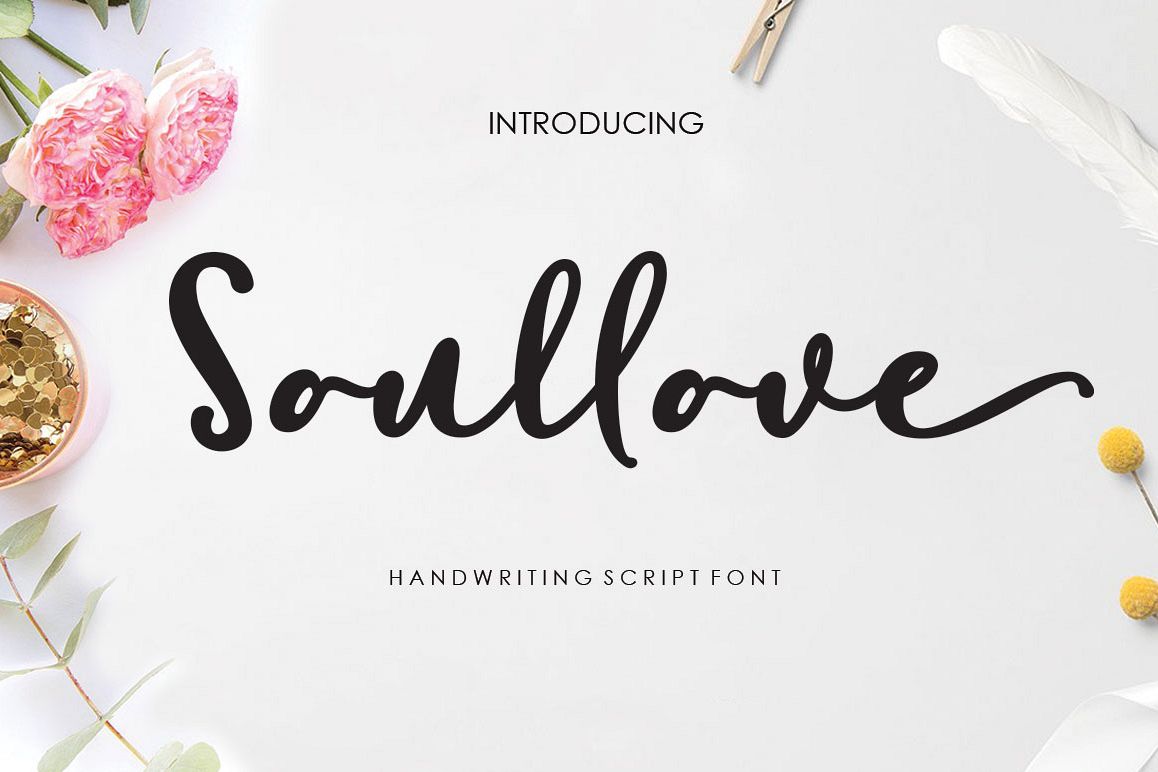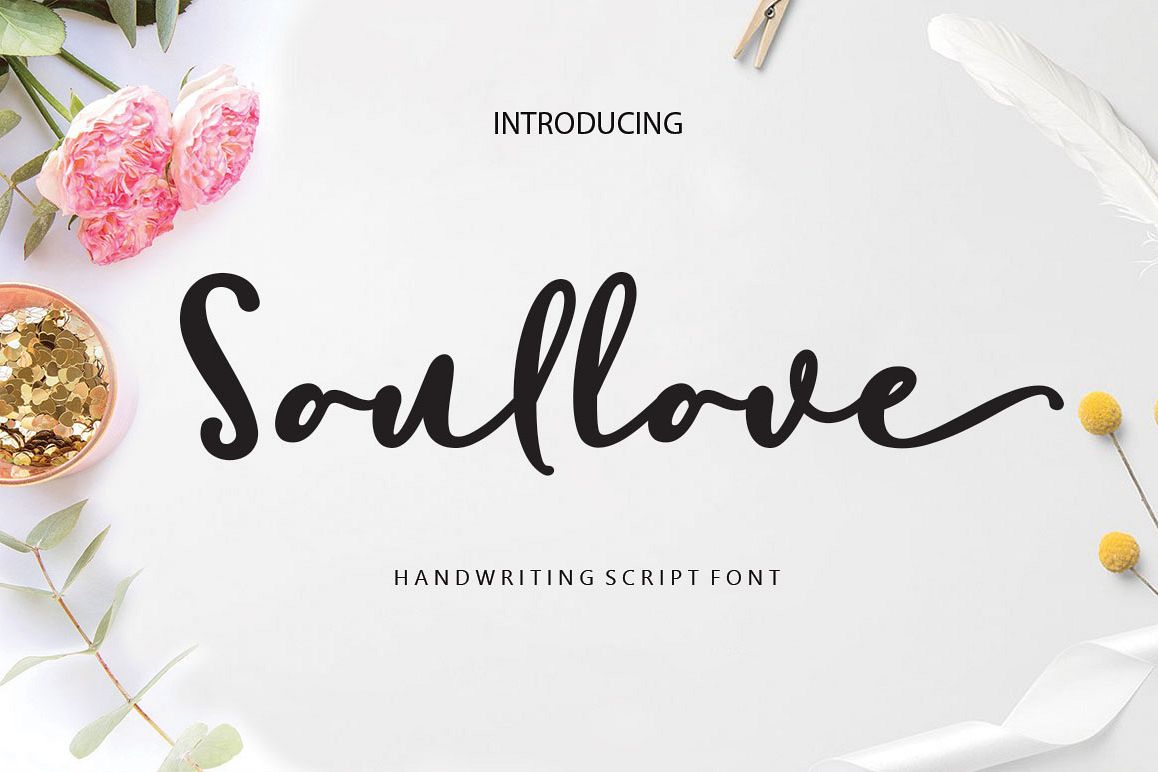
Soullove Script
INTRODUCING the newest else is so beautiful and very elegant that are designed to compliment each other perfectly.
Soullove Script : It comes with a complete set, Standard Aligature, Stylistic Set and Swash that has code PUA Unicode (specially coded fonts). So that all the characters can easily be accessed in full by a craftsman or designer.
This font supports all international languages. It is perfect for logos, quotes, badges, labels, packaging designs, blogs, websites, designs, headlines, banners, posters, prints, T-shirts, magazines, promotional products, templates, etc.
Features Basic Latin A-Z and a-z Numbers Symbols